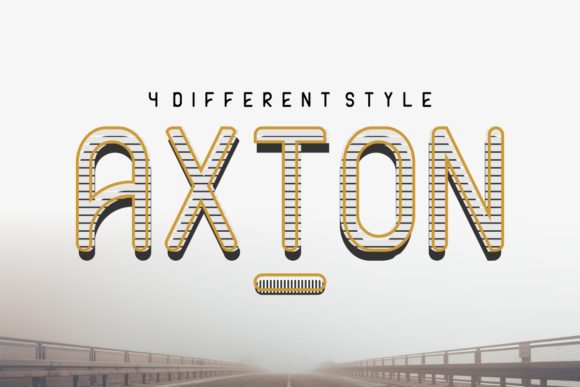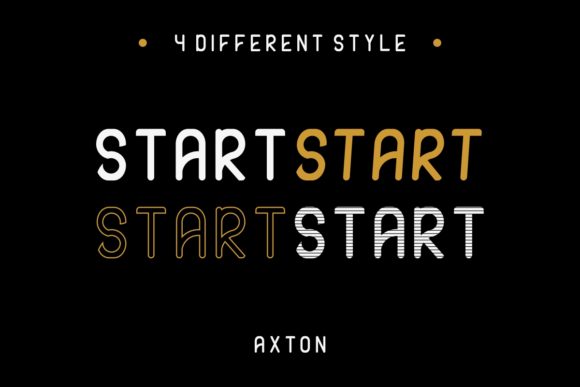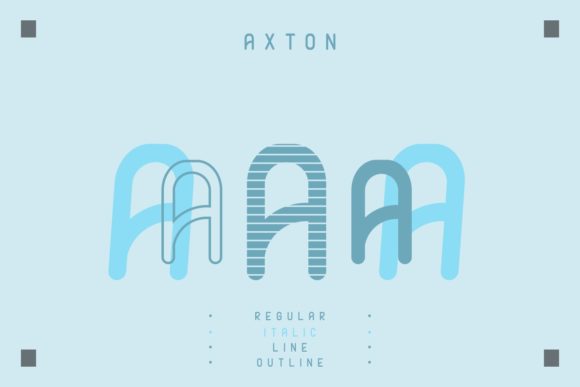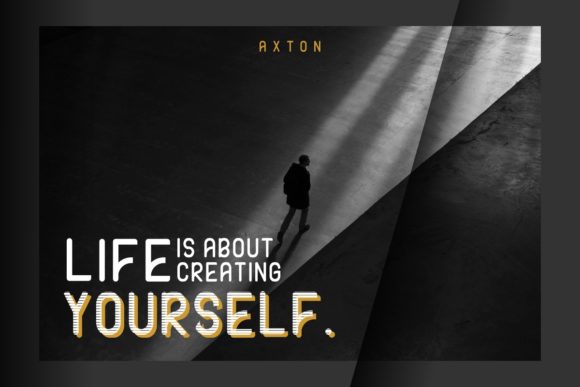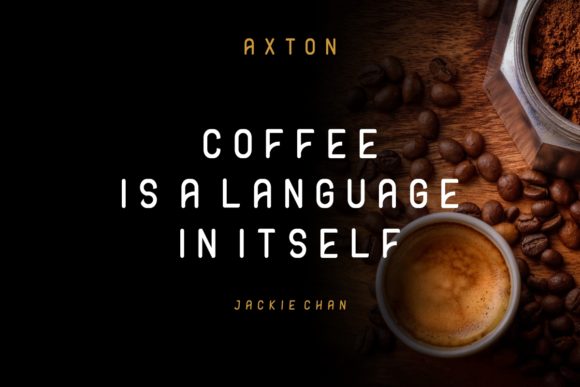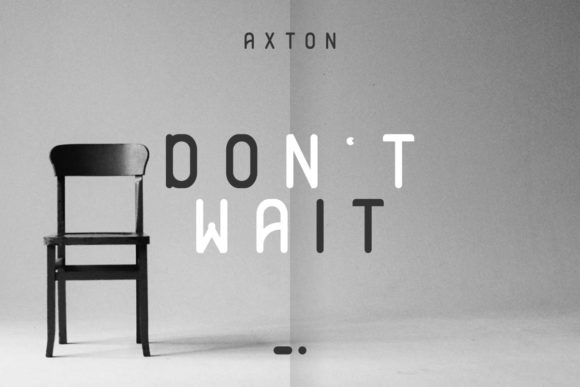
The Perfect Font for Your Next Design Masterpiece
Have you ever been working on a design project, pouring your heart and soul into it, and just can’t seem to find the right font to tie everything together? You know that feeling when you finally stumble upon the perfect font, and suddenly your design transforms into something truly magical?
Meet Axton Font, a beautifully rounded sans serif font that’s designed to bring a modern and simple feel to any project. With Axton Font, you’ll be able to elevate your designs and make them stand out in a crowded space. Whether you’re a seasoned designer or just starting out, Axton Font is a valuable addition to your toolkit, offering endless possibilities for creative expression.
Axton Font Key Features
- Font Family: Axton Font is a sans-serif font family.
- Font Size: Axton Font comes in 6 font sizes, ranging from 12 points to 72 points.
- Resolution: Optimized for 72 dpi and 96 dpi resolutions, suitable for both print and digital media.
- Unique Characteristics: Axton Font features clean lines, geometric shapes, and a modern aesthetic, making it perfect for contemporary designs.
Axton Font Review
I’ve had the chance to work with the Axton font, and here’s my honest take on it.
- Unique Character: Axton has a distinct, modern feel that sets it apart from other fonts. Its unique character makes it a great choice for projects that need a bit of edge.
- Legibility: Despite its unconventional look, Axton is surprisingly legible, especially at larger font sizes.
- Font Pairing: Axton pairs well with a variety of other fonts, making it a versatile choice for designers.
- Limited Glyphs: Axton has a limited set of glyphs, which may not be suitable for projects that require a wide range of characters.
- Not Ideal for Small Text: Axton’s unique character makes it difficult to read at small font sizes, which may limit its use in certain applications.
Overall, I think Axton is a great choice for designers who want to add a bit of flair to their projects. While it has some limitations, its unique character and versatility make it a worthwhile option to consider.
Tips for Getting the Most Out of Axton Font
Here are some tips to get the most out of Axton Font:
- Pair Axton Font with other fonts to create a unique and stylish look.
- Use Axton Font for headings and titles to create a clear hierarchy of information.
Common Use Cases for Axton Font
Axton Font is suitable for a variety of use cases, including:
- Graphic design and branding.